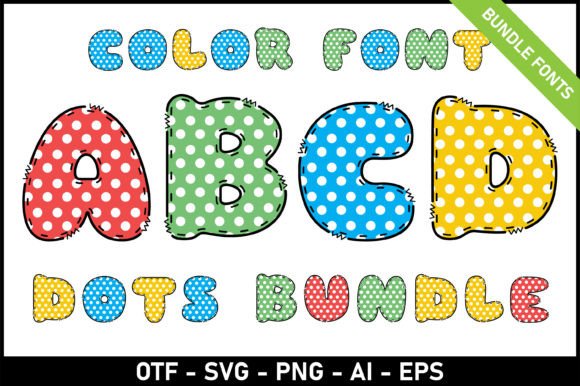
Journey into the Realm of Creativity with the Dots Bundle Font: A Whimsical Dance of Colors
In the realm of typography, where letters dance and words come alive, lies a treasure trove of fonts waiting to be discovered. Among these gems, the Dots Bundle Font family stands out as a captivating creation, a kaleidoscope of colors and playful shapes that ignites imagination and transforms ordinary text into extraordinary art.
The Dots Bundle Font is not merely a collection of digital characters; it's an invitation to embark on a visual adventure, a symphony of creativity that awakens the senses and captivates the soul. Each letter, meticulously crafted by the artisans at Veil, is a masterpiece in its own right, adorned with vibrant hues and intricate patterns that dance across the screen, leaving a trail of enchantment in their wake.
With its playful and artistic spirit, the Dots Bundle Font is the perfect companion for designs that seek to evoke joy, wonder, and a sense of childlike innocence. Picture a children's book brought to life, its pages adorned with whimsical characters and enchanting landscapes, all rendered in the vibrant colors and playful shapes of the Dots Bundle Font. The letters themselves become characters, each with its own unique personality and charm, guiding young readers through a world of imagination and adventure.
The versatility of the Dots Bundle Font extends beyond children's literature. Its vibrant energy and artistic flair make it an ideal choice for posters, invitations, greeting cards, and countless other design projects. Whether you're crafting a playful birthday invitation, designing a whimsical poster for a local theater production, or creating eye-catching social media graphics, the Dots Bundle Font will add a touch of magic and creativity to your work.
For those seeking to make a statement in the world of digital advertising, the Dots Bundle Font is an undeniable force. Its captivating colors and playful shapes are guaranteed to grab attention and leave a lasting impression, making your display ads stand out from the crowd. The Dots Bundle Font is the secret weapon you need to cut through the noise and deliver your message with impact and memorability.
So, embrace the whimsical charm of the Dots Bundle Font and let your creativity soar. Unleash the power of imagination and transform your designs into captivating works of art. The Dots Bundle Font is more than just a collection of letters; it's a gateway to a world where colors dance, shapes come alive, and stories unfold with every stroke of the keyboard.